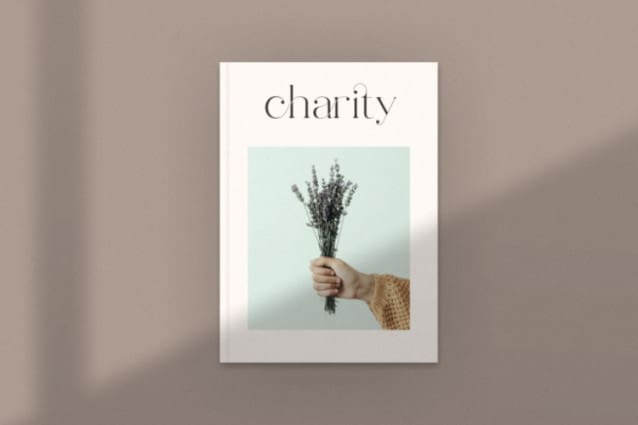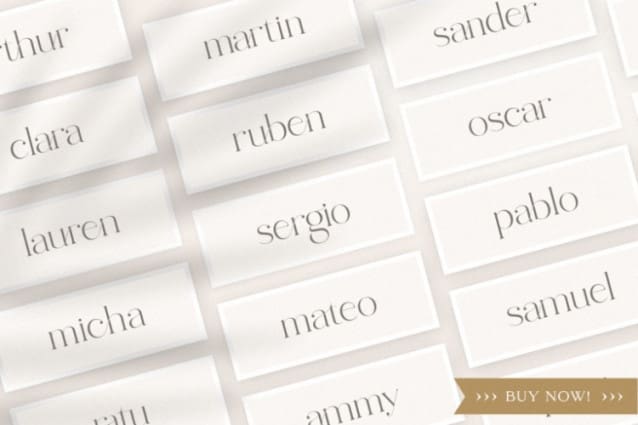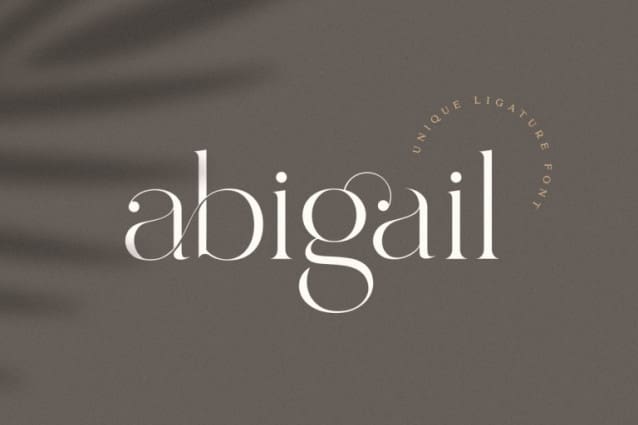
SS Abigail Font
SS Abigail Font is a unique and very elegant font for brand and logo design. Based on our experience as a graphic designer who works for a lot of companies, we often are requested to design a logo in a unique style but with an elegant shape. So, we try to brainstorming and create this font to make the idea is going out. This is perfect for BRANDING and LOGO DESIGN. You will get classy, elegant, and certainly unique logos with this font.
To make it look more unique, here we prepared some ligatures:
ab ah am an ar ak ap at oo cb ch ck cm cn cr ct eb eh ek em en ep er ub uh uk um un up ur st tb th tk tm tn tp tr tu ty fl fi ff ft oo cra ee ga gi it